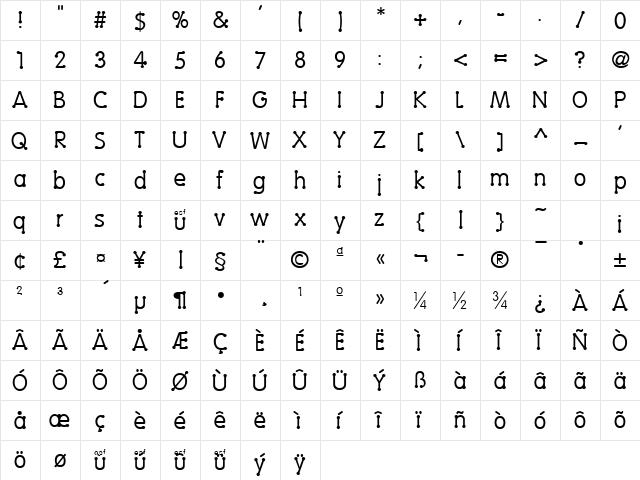
Vantrel Regular
Design Context for Vantrel Typeface
Vantrel takes a measured approach to typography — its balanced proportions and neutral character make it a reliable workhorse for both digital and print work.